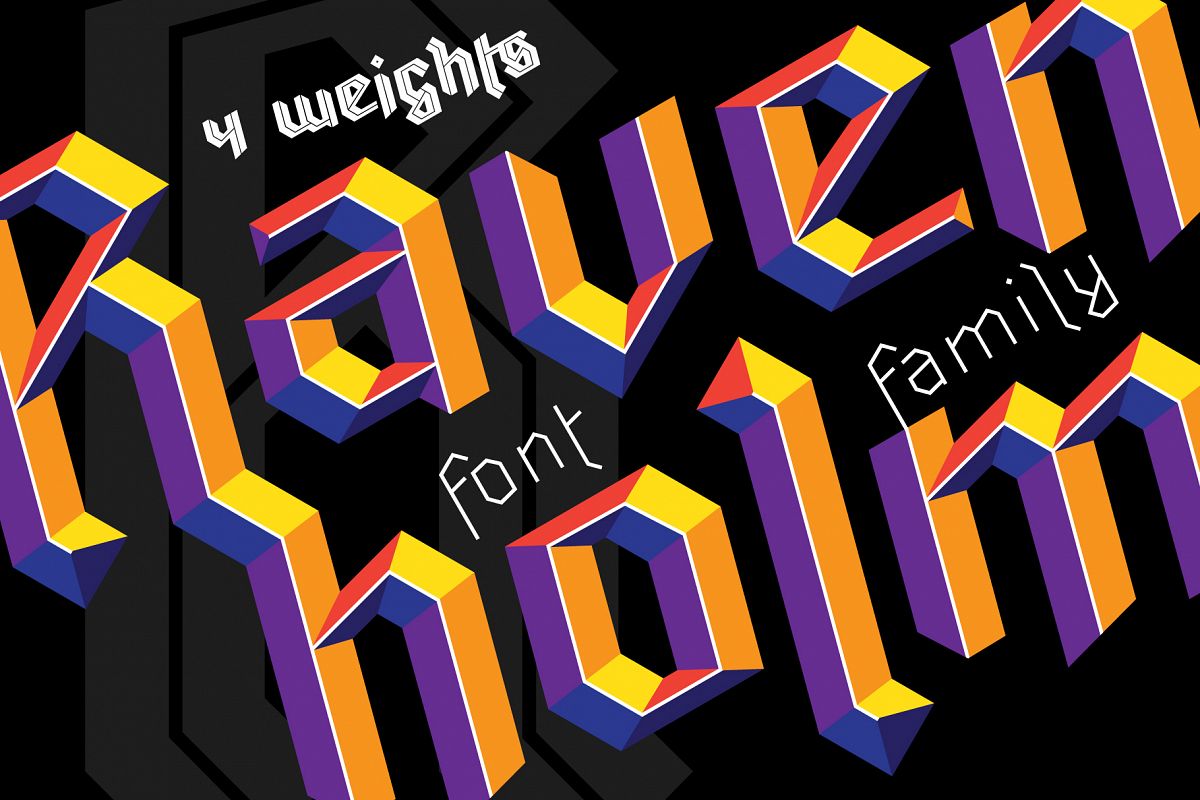
Ravenholm family
Ravenholm-Bold
Ravenholm-Inline
Ravenholm-Thin
Ravenholm-Color
Hello, Friends! Introducing Ravenholm - new modern gothic font family.
Font looks amazing as alone words and as full text blocks.
Ravenholm font family cast:
- Ravenholm Color (color OTF font)
- Ravenholm Bold
- Ravenholm Inline
- Ravenholm Thin